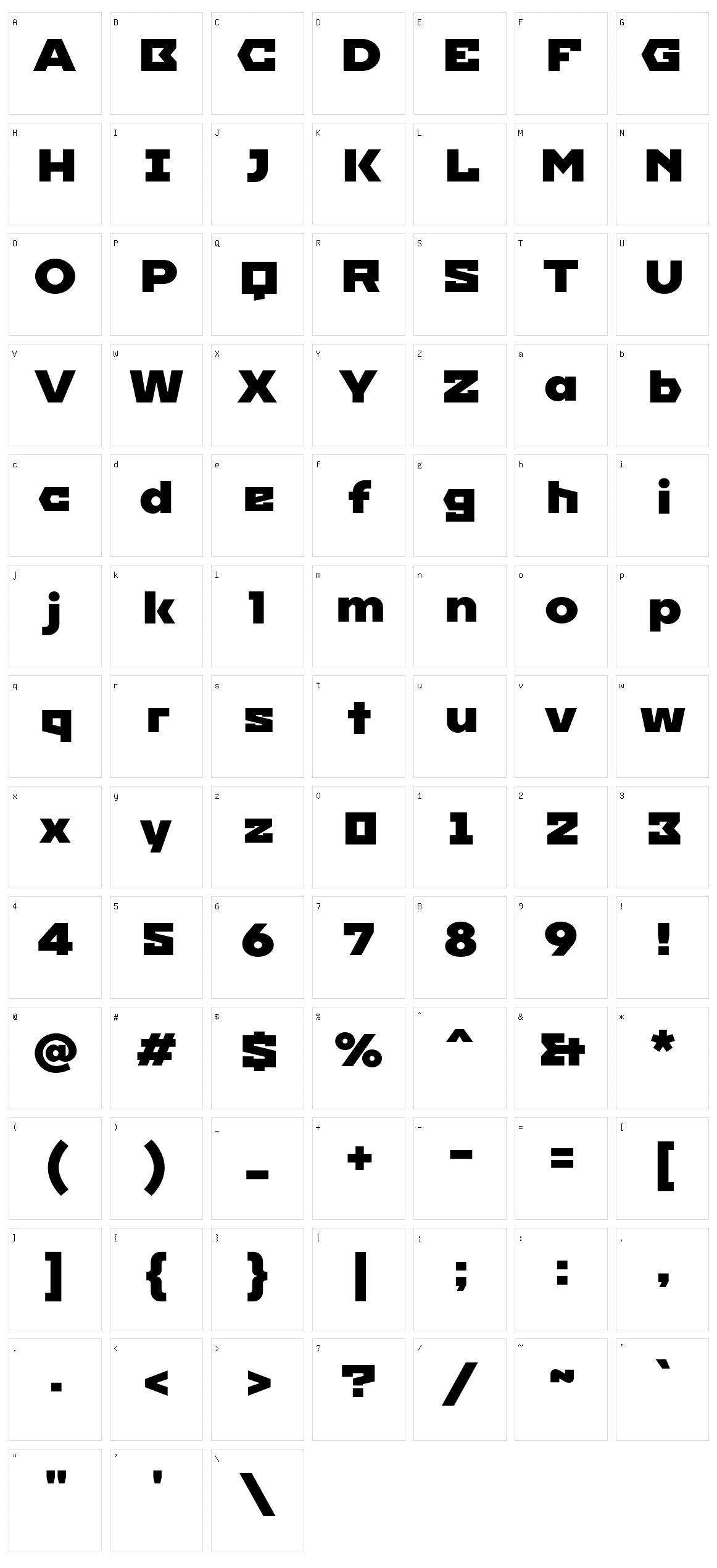
This font is based on the corporate font for the game The Mandate.
The Mandate is a science fiction roleplaying game which sees the player
as a disgraced space captain who gets one chance at redemption and is the
last desperate hope for the newly crowned Empress to restore peace and
secure the future of humanity.